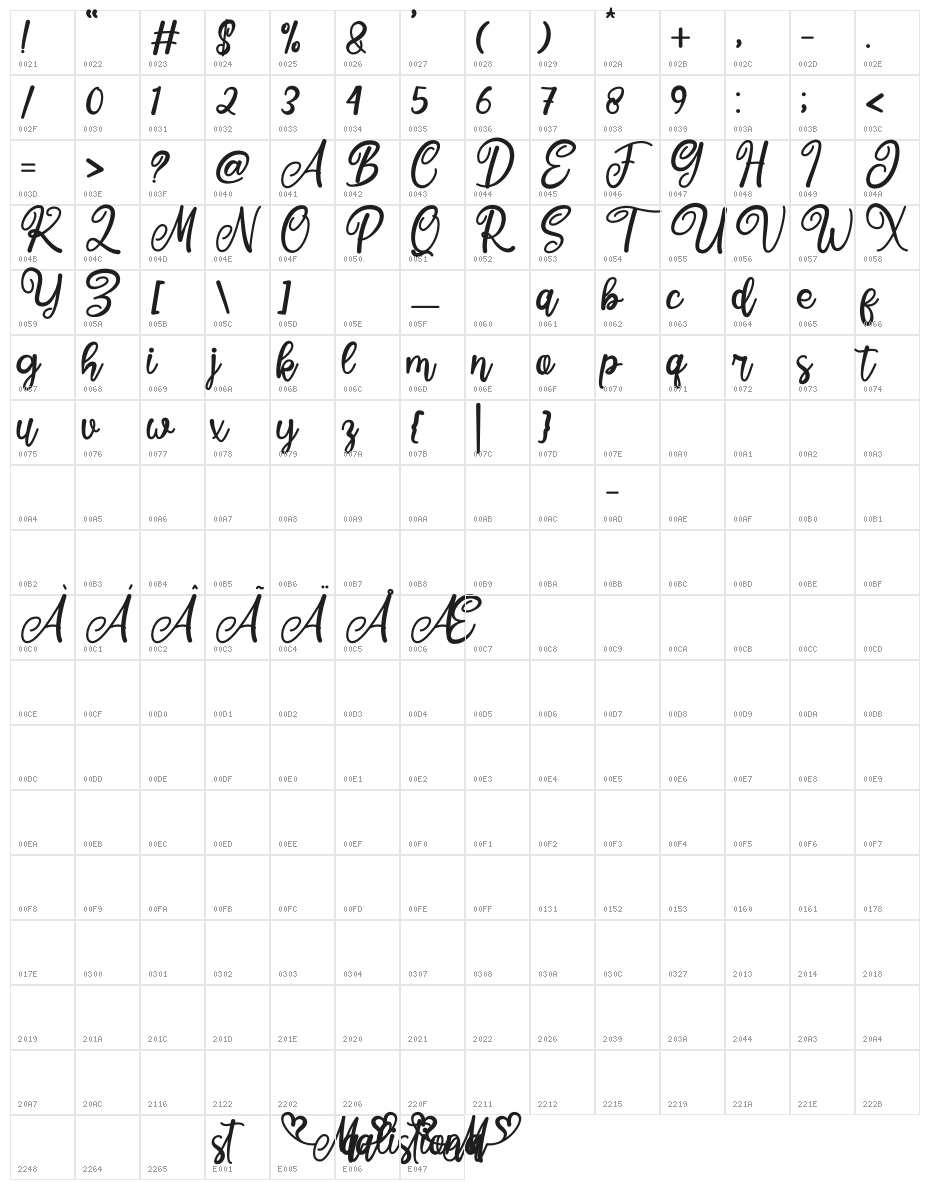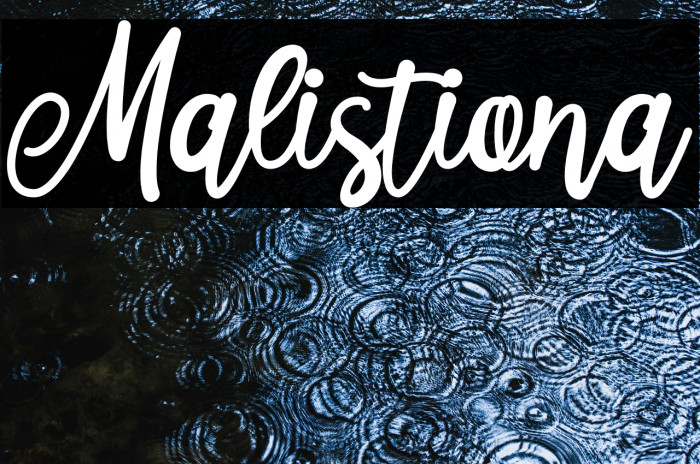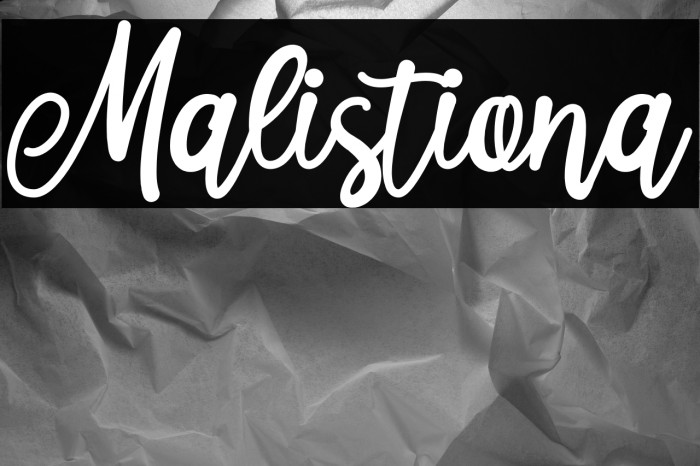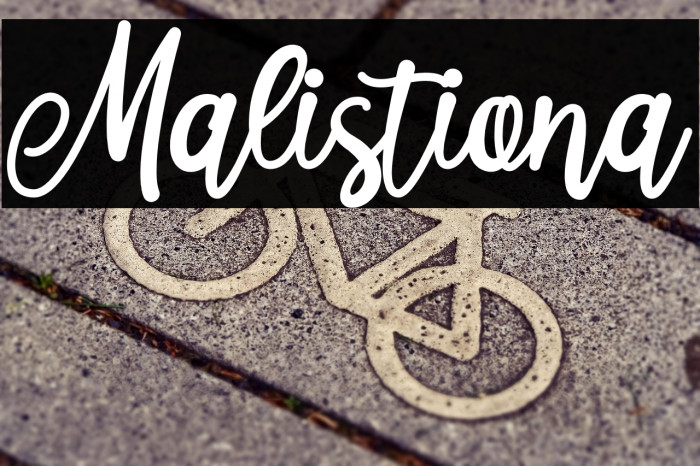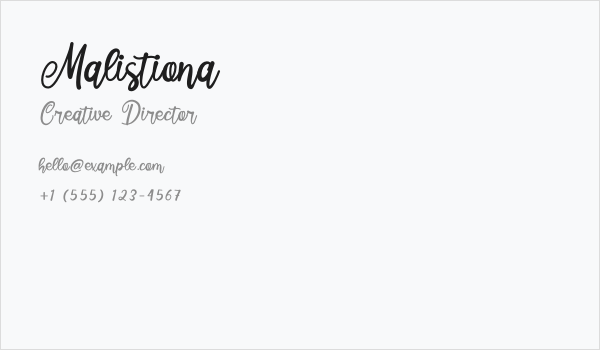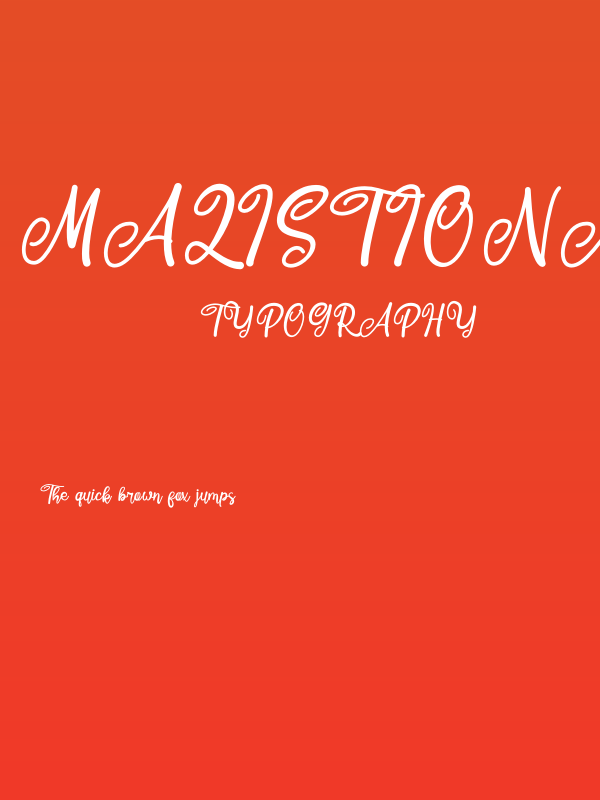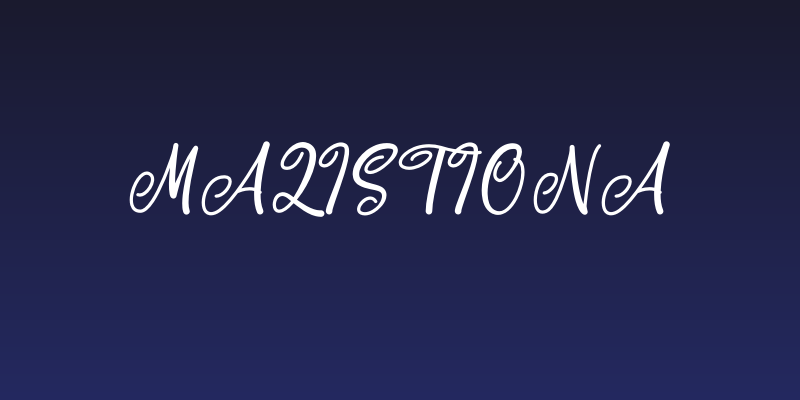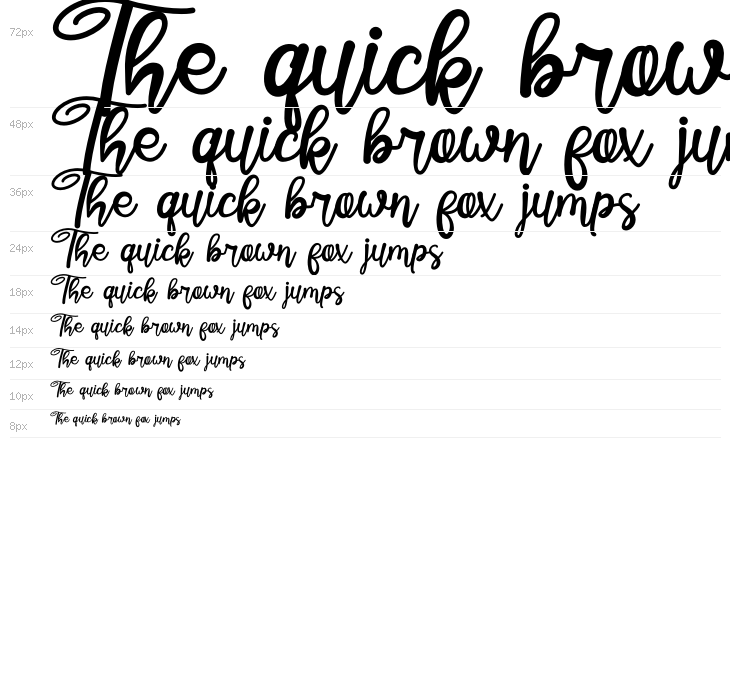
Malistiona Font
Malistiona Description
This font features a lively and flowing script style, characterized by its elegant curves and smooth connections between letters. The uppercase letters are slightly more ornate, with playful loops and swirls that add a touch of sophistication. The lowercase letters maintain a consistent rhythm, enhancing readability while preserving the font's decorative appeal. Numbers and special characters are designed to match the overall aesthetic, ensuring a cohesive look across all text elements. The font's dynamic and energetic appearance makes it suitable for a variety of creative applications.